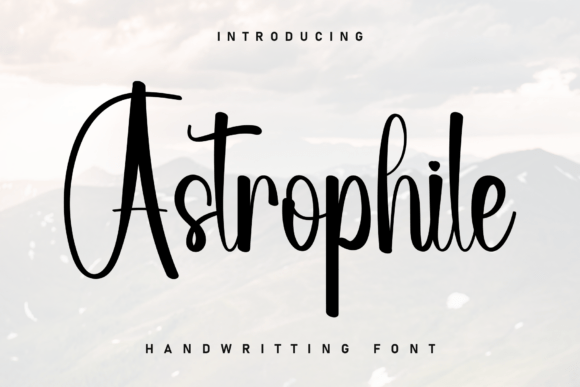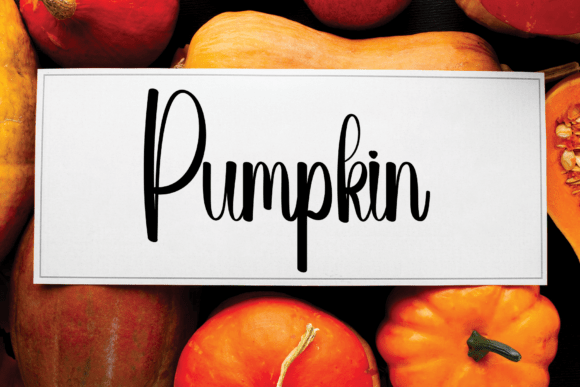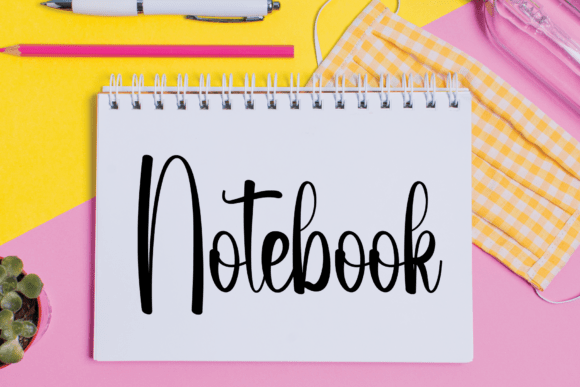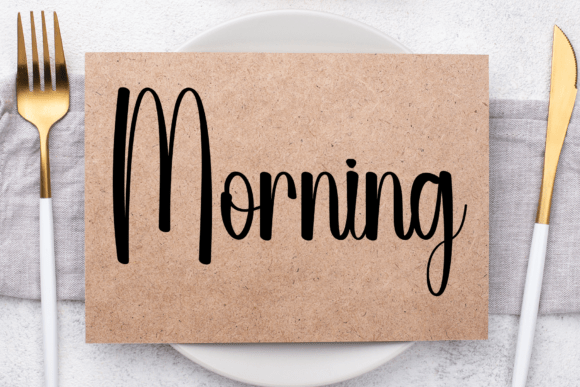
Astrophile Script Fonts
Bring an air of unhurried elegance to your creative toolkit with Astrophile. This typeface celebrates the beauty of a personal touch, weaving fluid, hand-penned strokes into a tapestry of effortless grace. It serves as a breath of fresh air for modern visual storytelling—ideal for sculpting evocative brand identities, designing bespoke stationery, or infusing digital feeds with a sense of authentic, tactile warmth. Defined by its seamless rhythm and serene silhouette, Astrophile transforms every layout into a moment of genuine connection.